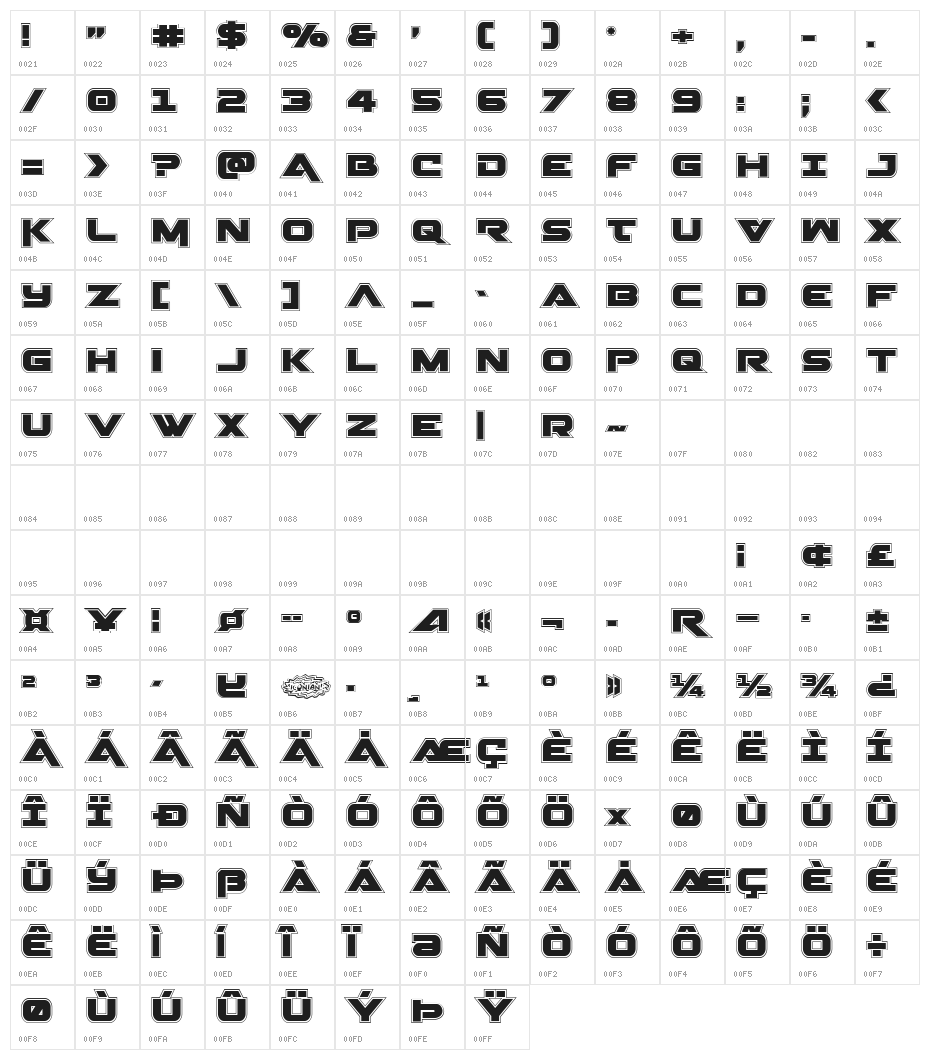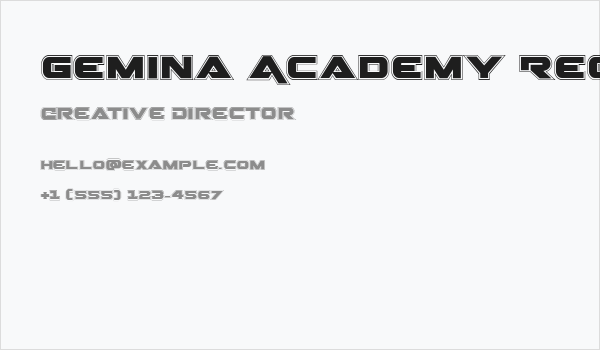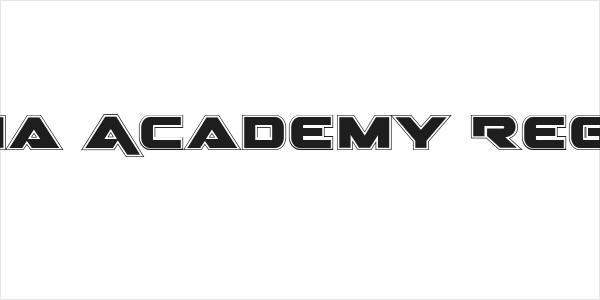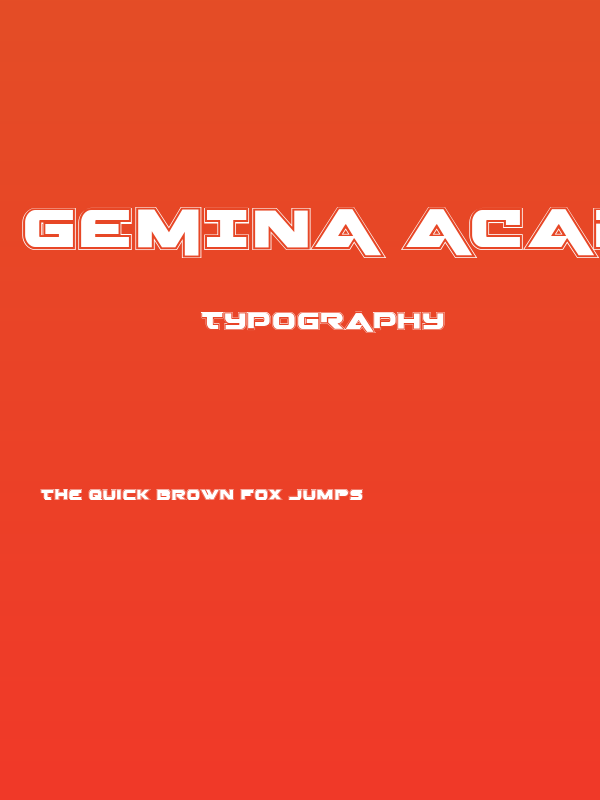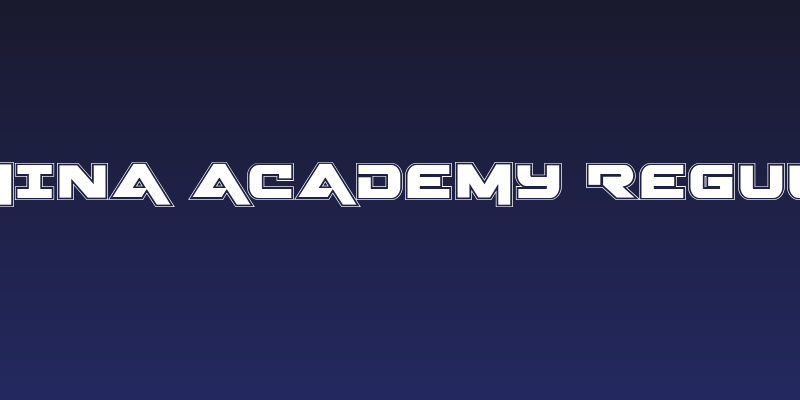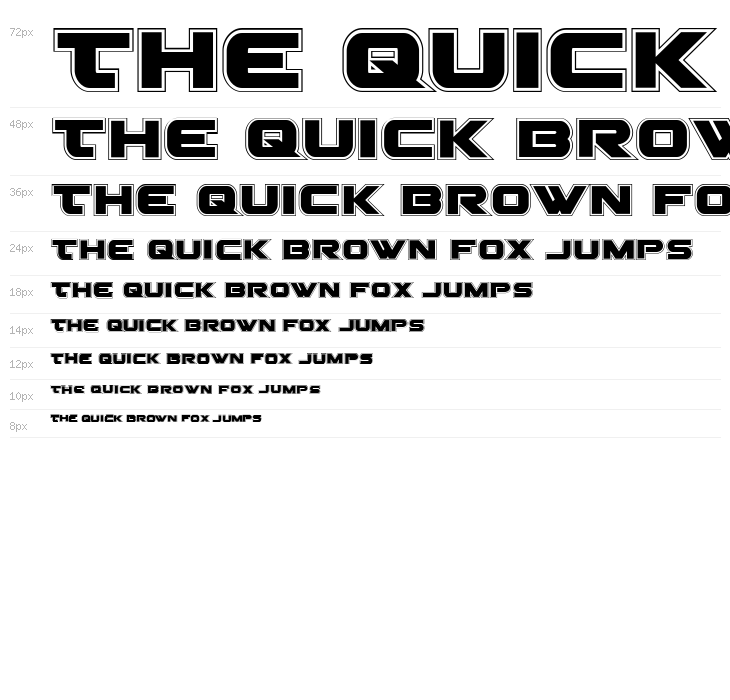
Gemina Academy Regular Font
Gemina Academy Regular Description
This font features a bold, geometric design with a futuristic and dynamic appearance. The characters are constructed with sharp angles and clean lines, creating a sense of movement and energy. The uppercase letters are particularly striking, with a strong presence that commands attention. The numbers and special characters maintain this bold style, ensuring consistency across all glyphs. The font's design is ideal for projects that require a modern and impactful look.
| Proposed Projects | Ideal for sci-fi themed projects, video game titles, posters, and branding that requires a modern and bold aesthetic. |